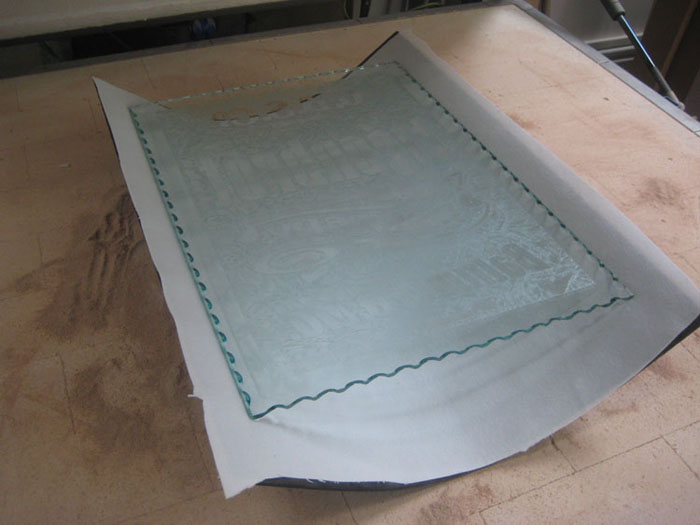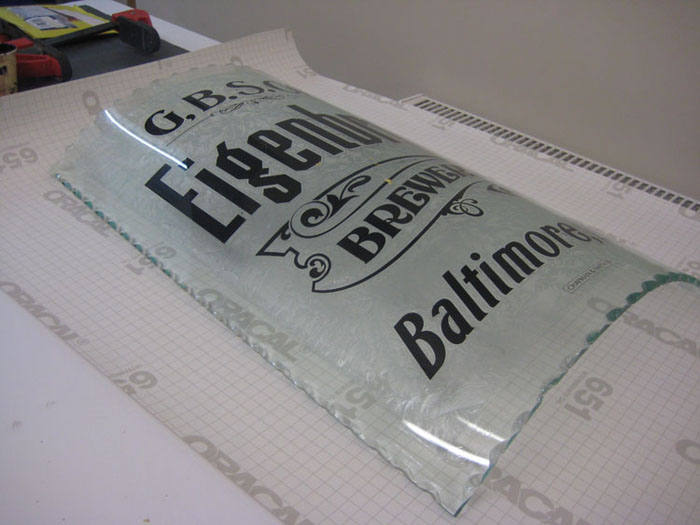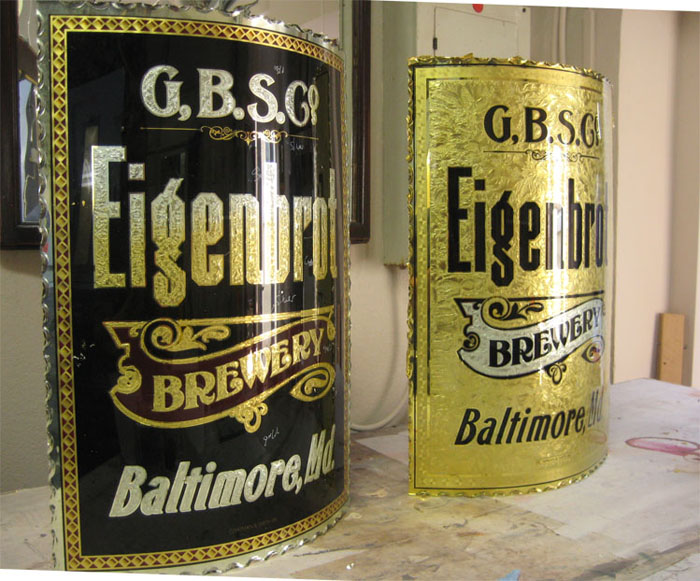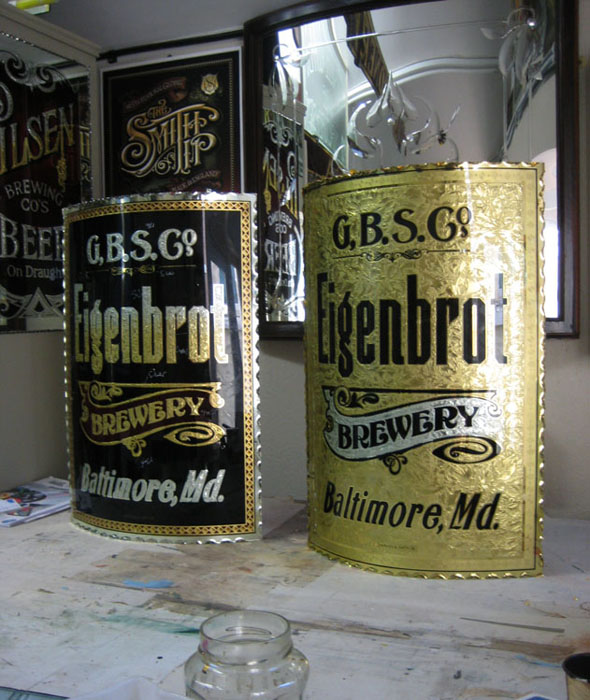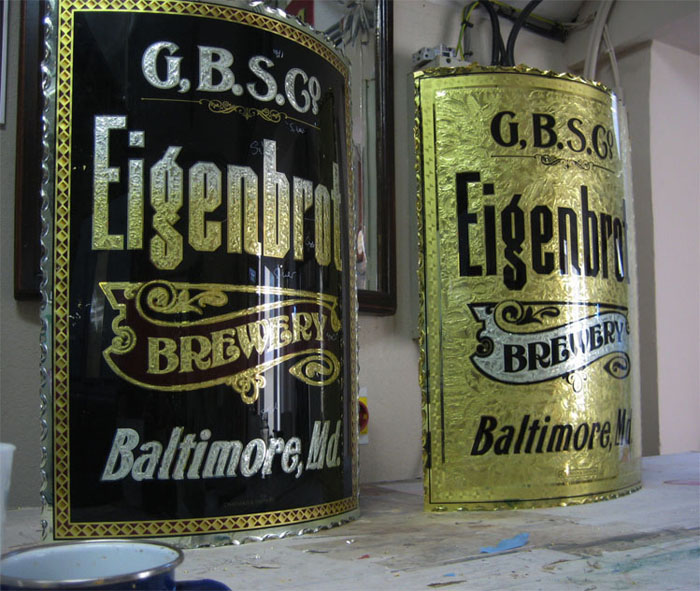
Eigenbrot Brewery Curved glass signs
I chipped and gilded these two glass signs this last week . The gold one I get to keep as I made it for a corner in my workshop but the other will go to a client. The customer owns an American bar and wanted a glass sign for part of the decor. The advert I found in an advertising book. I chipped one in the kiln and the other on a light table. The black glass was chipped in the kiln , I managed to get the tempratures wrong and took the heat way to far up for chipping and melted the glue before it had a chance to chip.I left it on and it still chipped but with more of a finer chip it still looked ok for this type of sign. they both look really old and in the shop here almost look kind of original. good fun to make as always. taken a few shots to show the chipping. the signs are 2 ft high
different angle picks
Those both look very nice Dave. I can't decide which one looks best. I like the gold blend on the black one.
Nice work mate.
I prefer the all-gold one.-What is the triangle/checkerboard border pattern on the black one.?
Davey.....sweet pieces. Now, you bright lined by hand?....and are they leaf gilded? If not you need to tell us how you screened or masked and how the heck you got silver and angel gild into them!! Its a nice blend in the chip.
....hahaaa, it's like everything you do Dave becomes a monitor bkdg for me. It's great to just sit here every now and then and really look at your work for awhile. I feel so fortunate to witness the skills and talents of so many artist on this forum, but Dave, you just keep upping the bar man. I'm sure I speak for many............thank you !
Truley amazing. I would love to learn some of this. The closest I have ever come is doing re-production pinaball glass
great work
Once again thanks Everyone . Wayne the triangles are painted through a paint mask ,I at to allow for expansion so to match up the border it was hard but I got there,this was then painted by hand with glazing asphaltum and varnish the same way as Gregg Hegear creates those fine scrolls for the fire trucks .I then matt gilded over the top. The gold on the black glass was hand gilded and hand brushed bright lines. Doug the gold one I cut a mask and outlined it ,I kept all the file and once the chipping was done placed the mask down and painted through using Nazdars apoxy black ink. Rob from Kelly signs told me where to get the paint from over here, you can scrub away with this stuff all day and it does not come off. A friend from here called Jake Ansell was telling me how well it worked on glass while he was at Kelly Signs. It is simalar properties to sericols to pack system and both work extremely well for silvering over. I tested 3 different paints out for chemical silvering and all work very nicely. I then water gilded using 22crt gold over the whole piece ,the matt border was done first and then I cut a design through a clear mask and burnished two ways varnished this and gilded using wax paper . I have noticed when buying distilled water for gilding ,to avoid any cloudiness in the gild it is best to buy sealed containers the ones with a foil seal over the end ,some come with just a screw top and the dates on the side may only say 1 week old but if it is not sealed with the foil the water is no good and your gild will be bad. The gild looked so clear you could not tell the difference from chemical silvering with the sealed water. I appreciate it would be quicker by spraying with Angel gild but I used the Tip I designed and it worked great for curved glass and the amount of gold was just 3 books. at £6.00 each. anyway glad you like them.
I was kinda curious as to how these signs get hung. I don't see any holes in them for mounting with screws, and you certianly wouldn't want to cover up the scalloped edge in a frame. Are there some sort of clips you would use to hang them?
Yes the clips we get here are standard chrome finish mirror holders they usually scew back to the wall and then you move down the 1/4 overlap over the glass which is part of the clip it self , they hold the glass but these glass signs will need a wooden structure making to hold the clips in place. The frame will be a triangle section made of ply and the clips will fix to the ends as if they were fixed to the wall for flat glass. Make sense? because I am lost already... trust me it works and I will post a pic of them mate. To be honest I wished I had put some holes in them just to make it easier. Aho Whitey! Kent the scallops do not mellow with this amount of heat, anything above 750-830 would start to round over but 590-630 is enough to make the panel sag to the curve needed. I can control where I want the glass to stop bending but there is some experimenting and time settings needed.